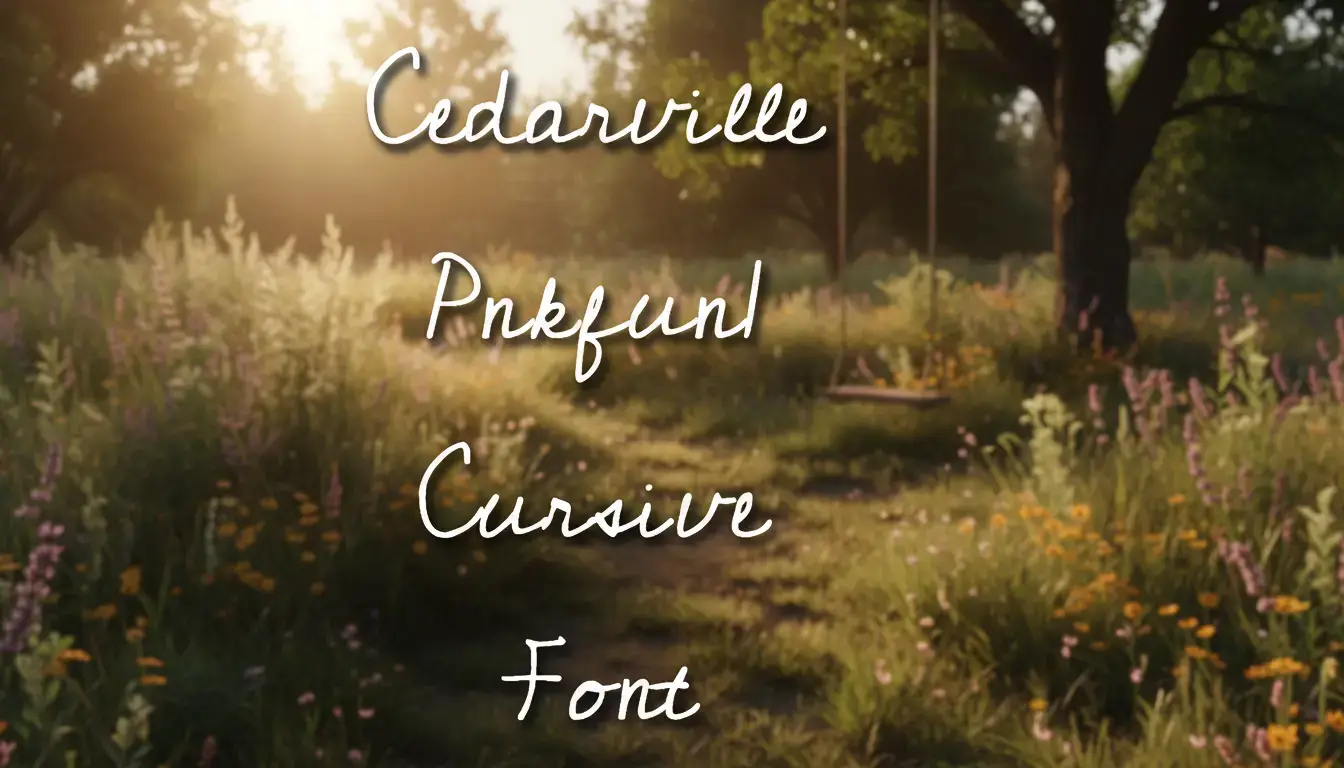
Cedarville Pnkfun1 Cursive Font
Cedarville Pnkfun1 Cursive is a handwritten font designed by Kimberly Geswein. It looks like someone actually wrote it by hand: relaxed, friendly and a little imperfect in a good way. You can download it for free and test it with your own words in the preview above.
You get every letter from A to Z in both cases and all the numbers from 0 to 9, which means Cedarville Pnkfun1 Cursive can handle full sentences, dates and prices. Everyday marks like &, !, ? and @ are there too. Thanks to its accented letters, it also works for Spanish, French, German, Portuguese and Italian, not just English.
Designers usually reach for fonts like Cedarville Pnkfun1 Cursive when they're making greeting cards, journal pages and friendly social posts. Set it a bit larger than you would a normal text font. Handwriting styles lose their charm once they get too small to read comfortably.
Yes. Cedarville Pnkfun1 Cursive includes the accented letters needed for Spanish, French, German, Portuguese and Italian, so it works for more than just English.